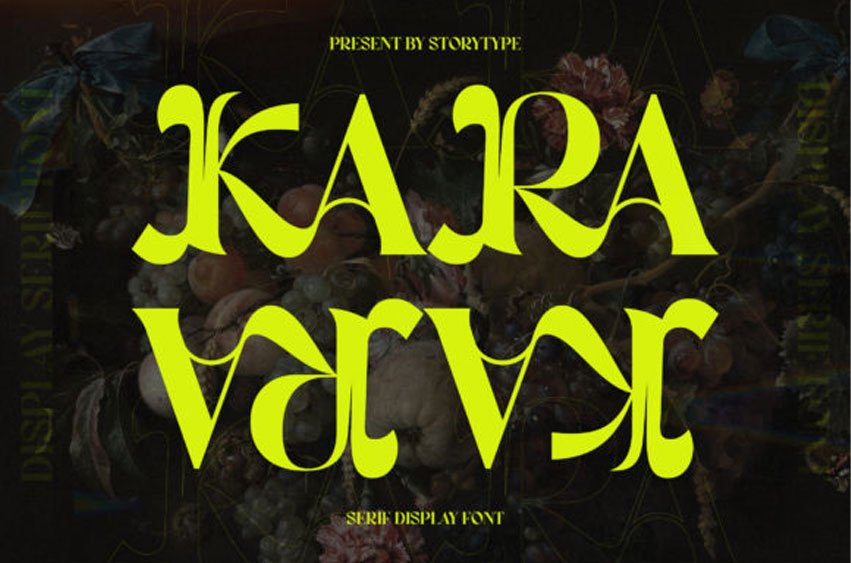
Kara Font is a thick lettered and bold display font. This original look will appeal to a wide range of crafty ideas, from letterheads and titles, to stationery.